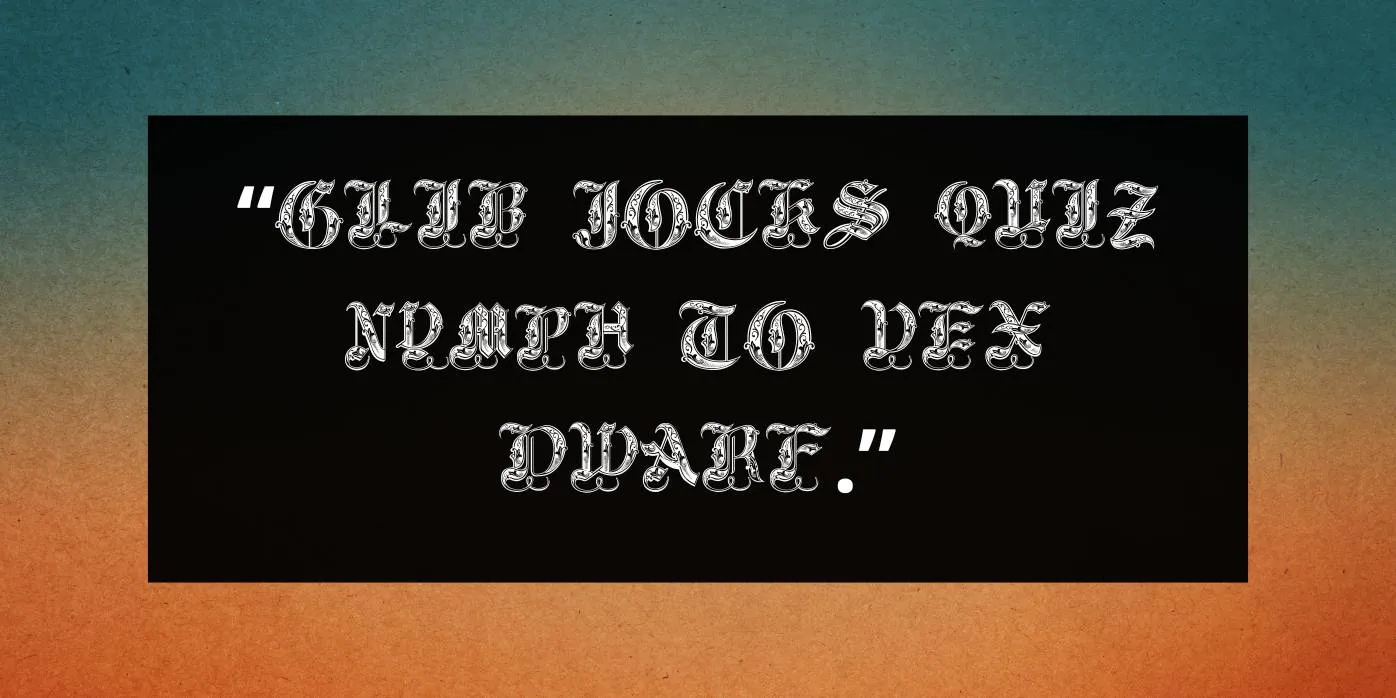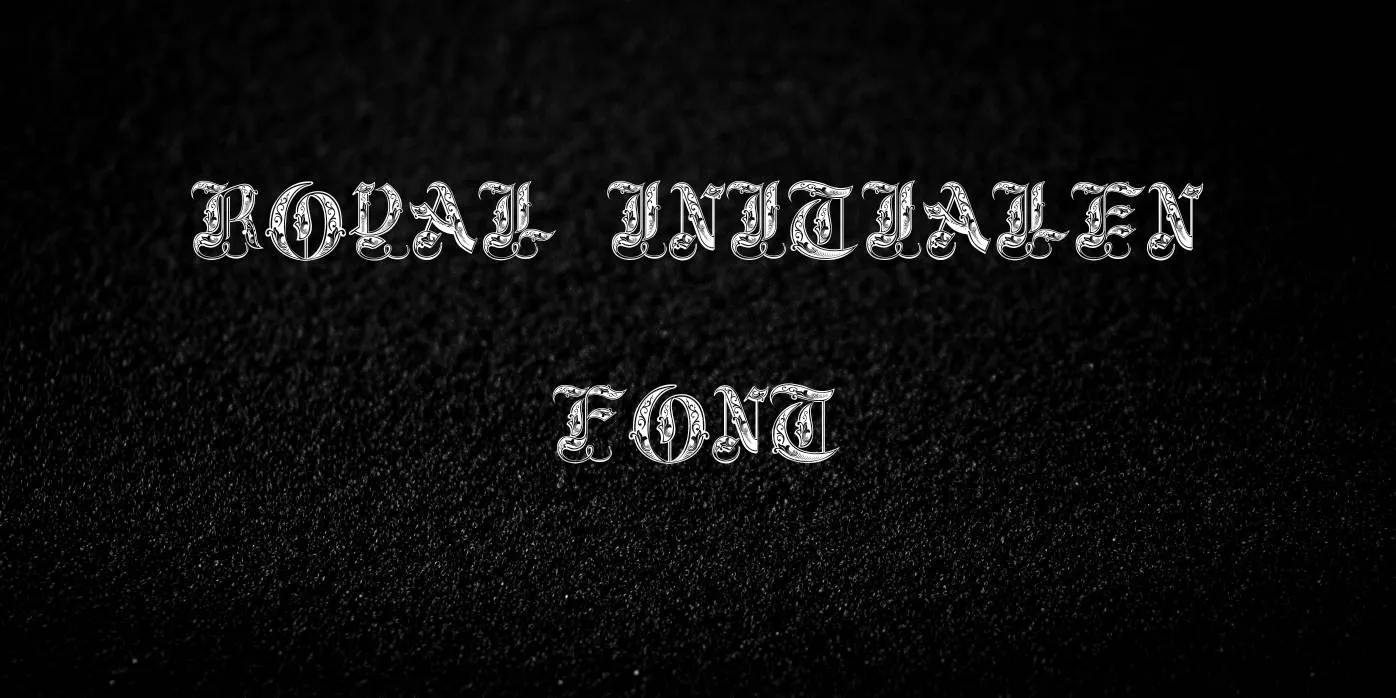
Royal Initialen Font
Royal Initialen Font is basically a Gothic Font. Dieter Steffmann designed this gothic typeface. The characters of this typeface are bold and unique that maybe a little bit difficult to read. The characters of this typeface contains letters, special characters, and punctuation.